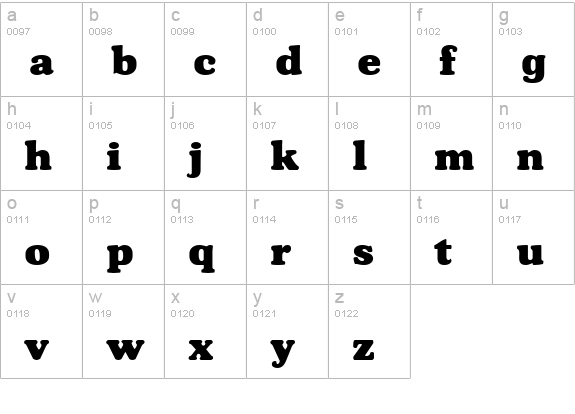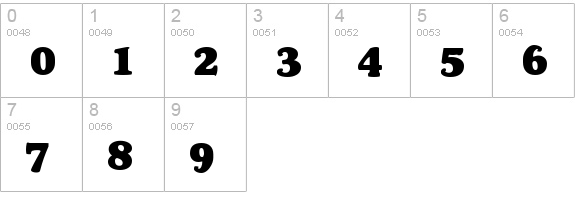
Broadside Normal is the standard, neutral variant in the Broadside typeface family \xE2\x80\x94 well suited to general body text, paragraphs, and standard typographic work.